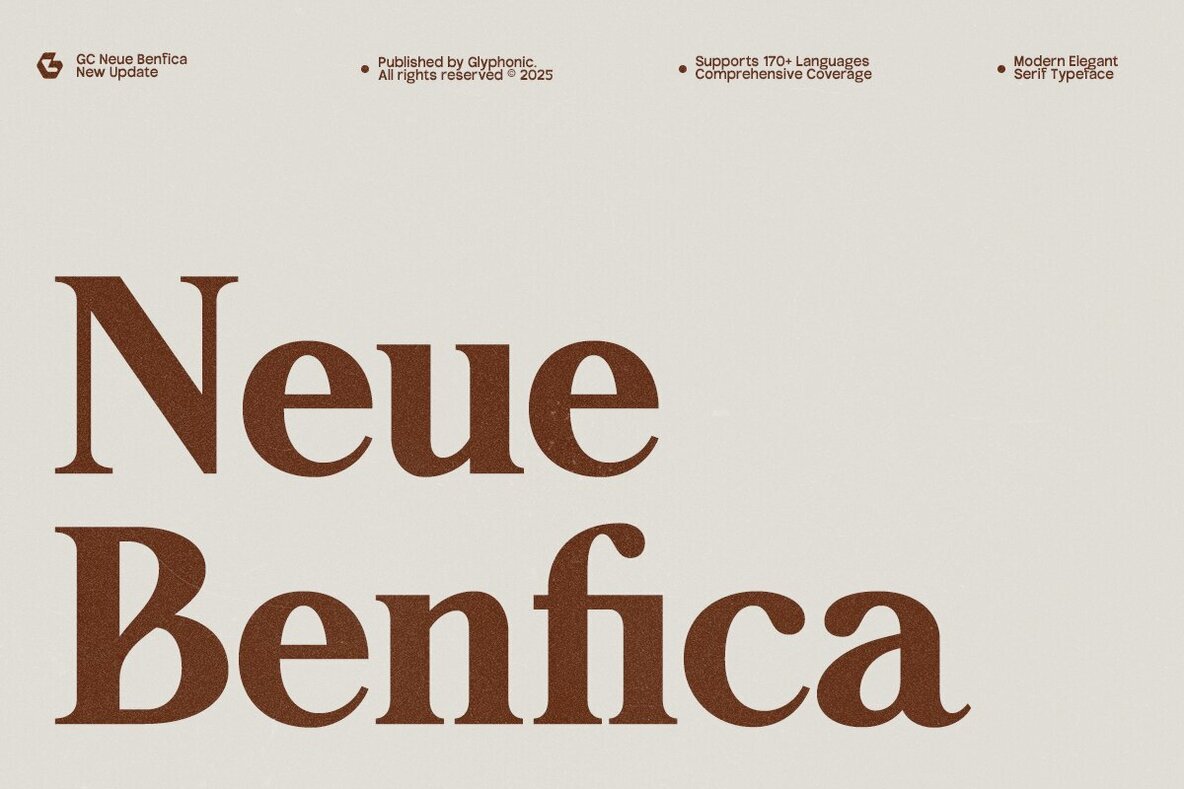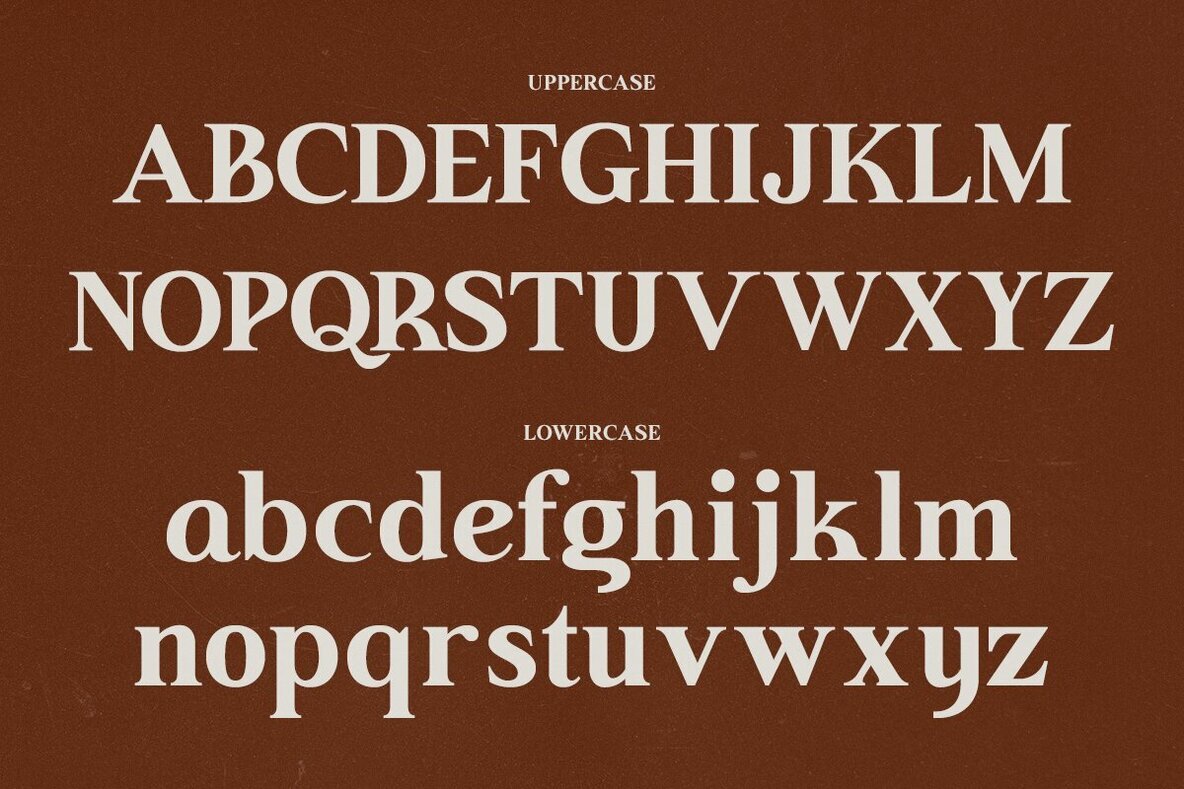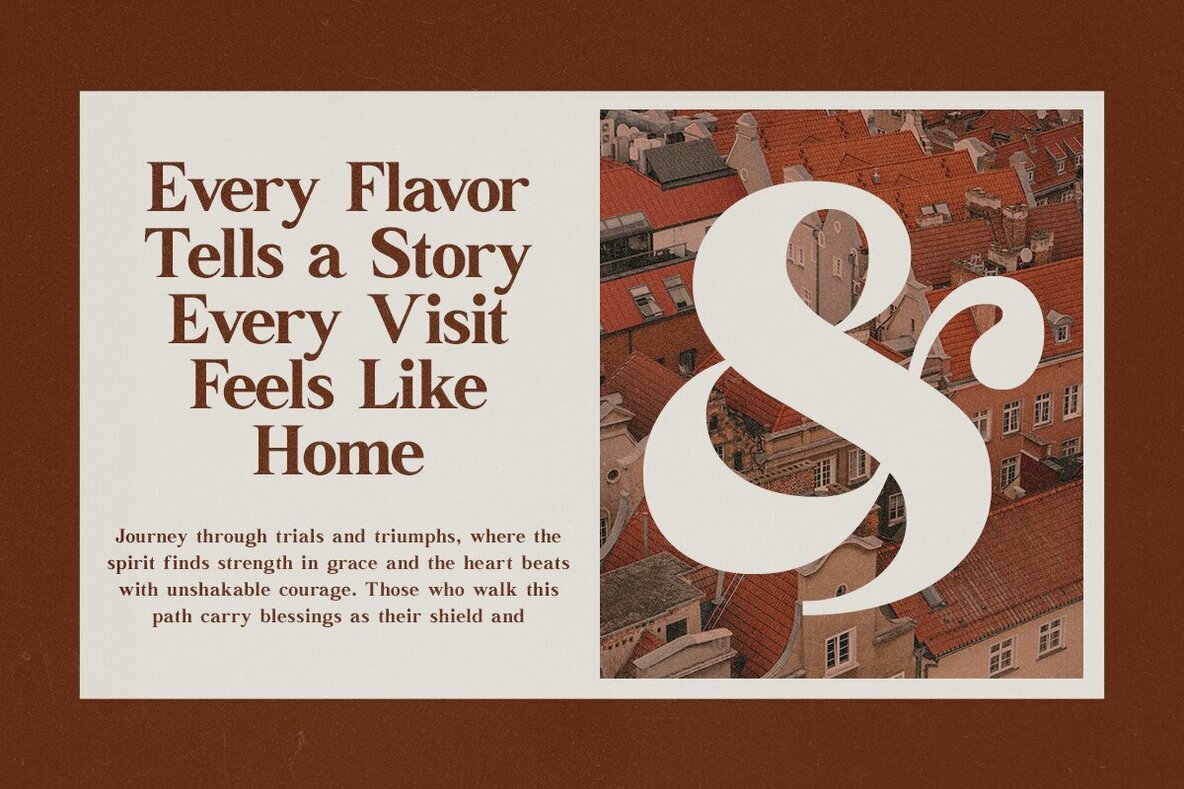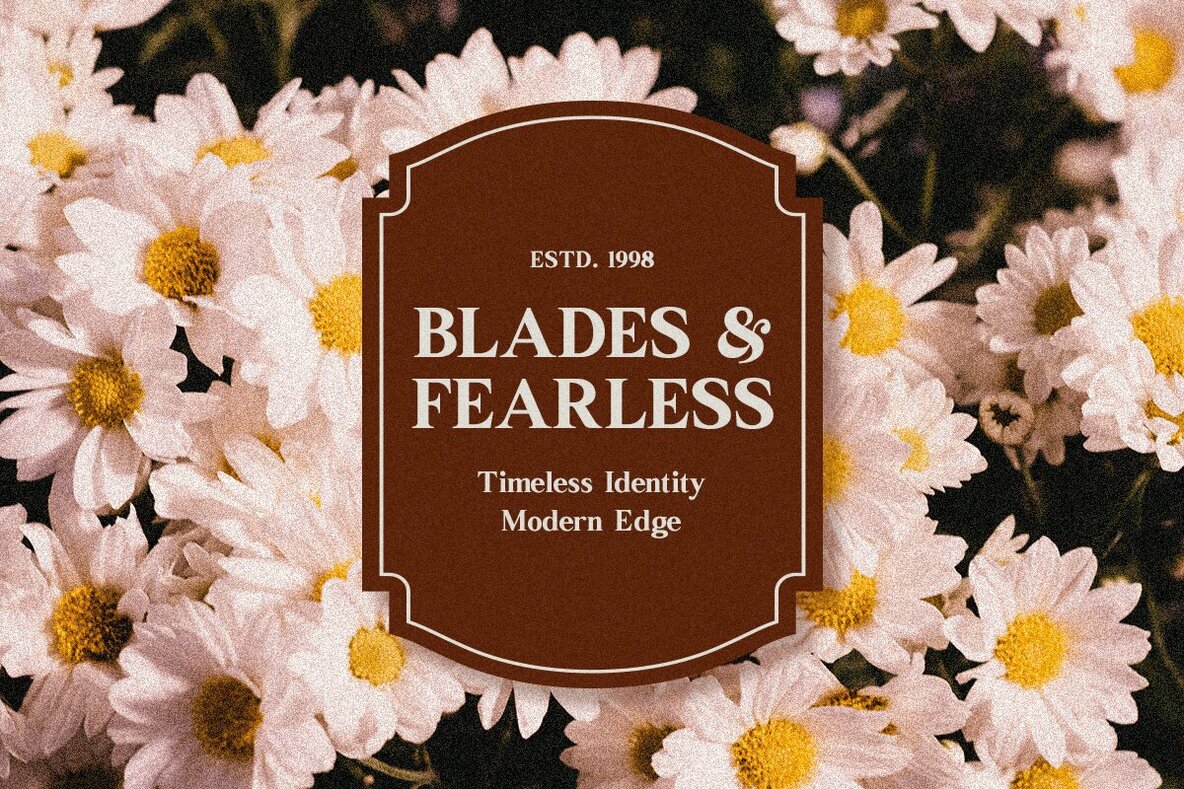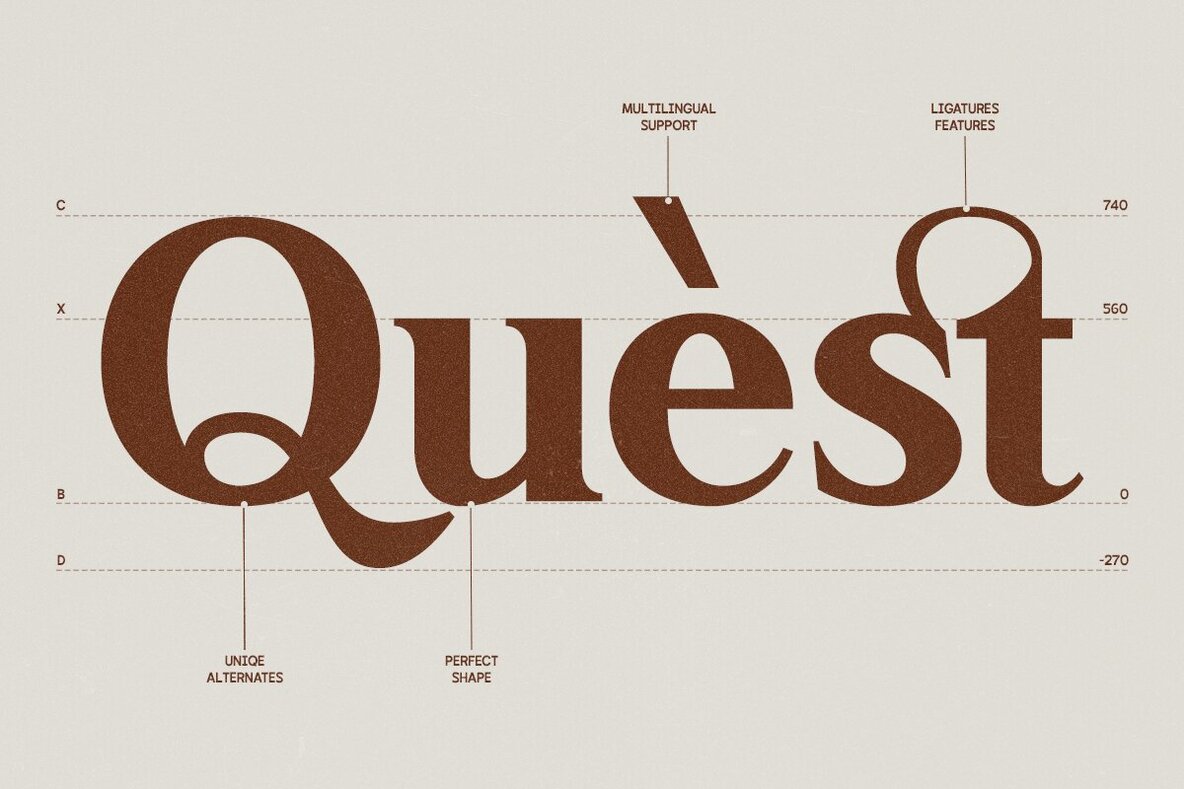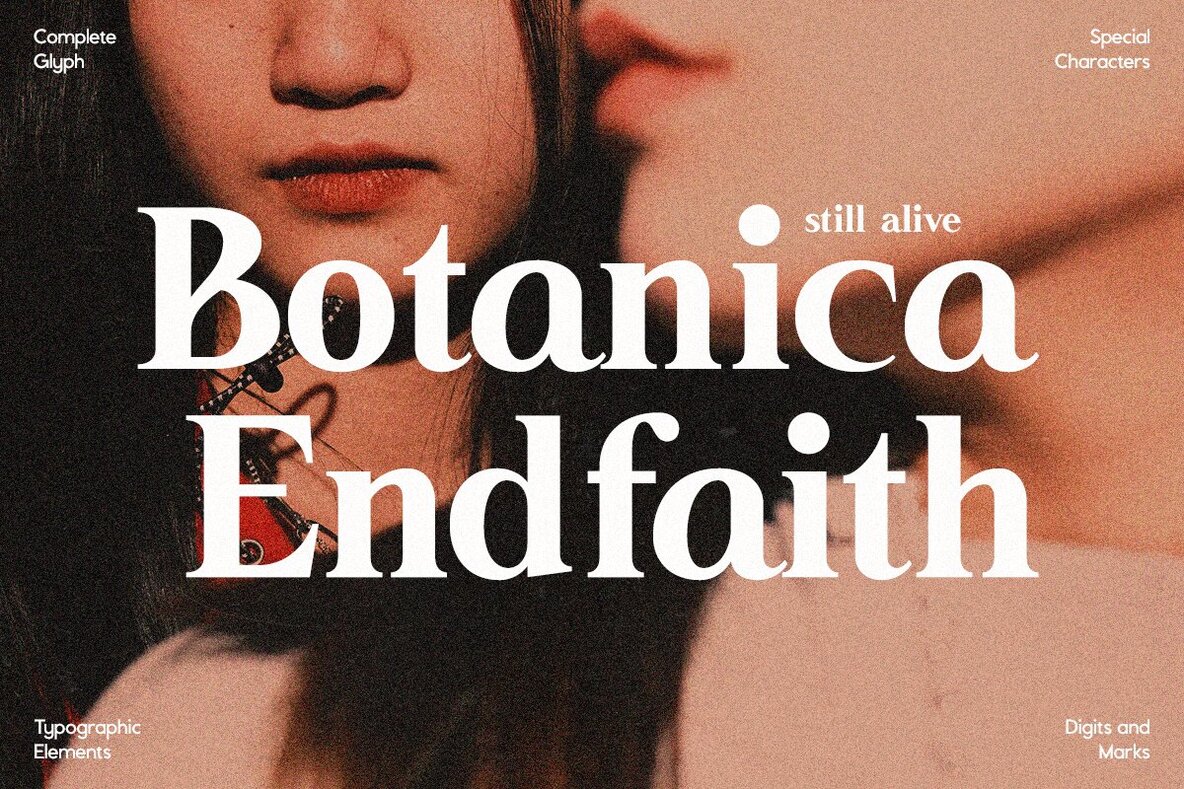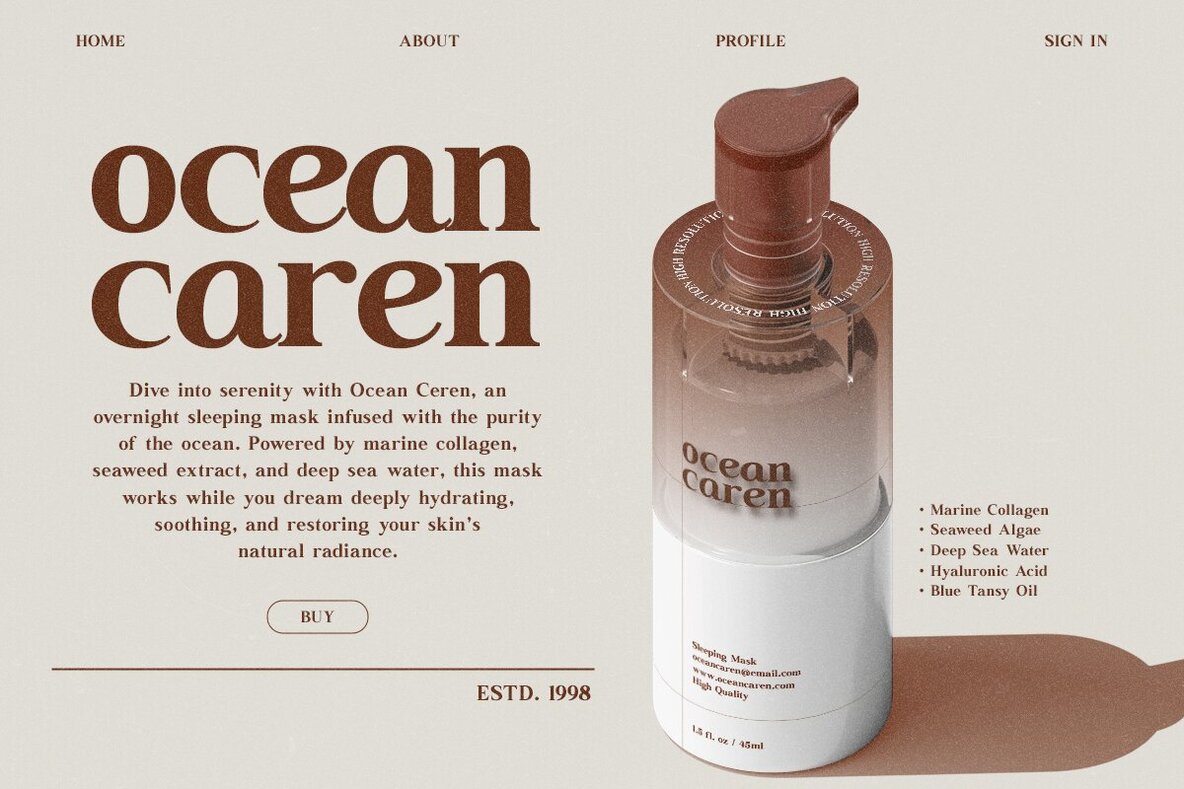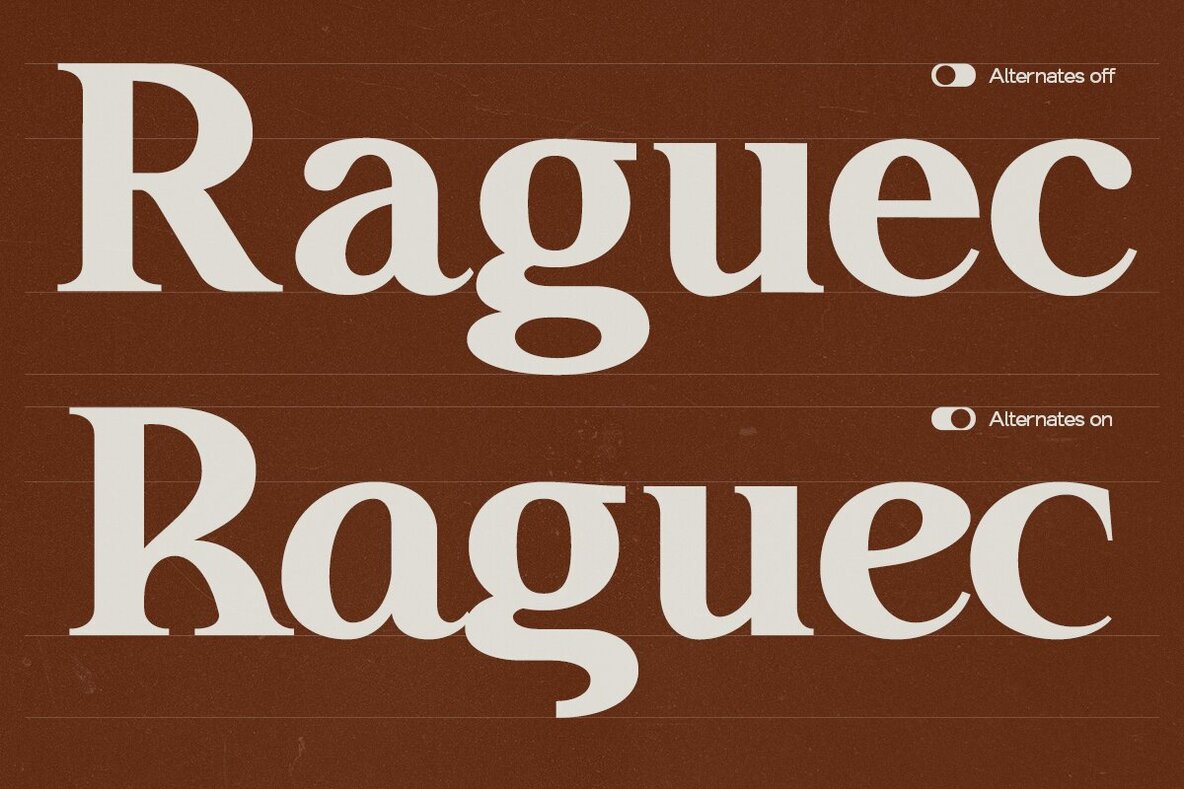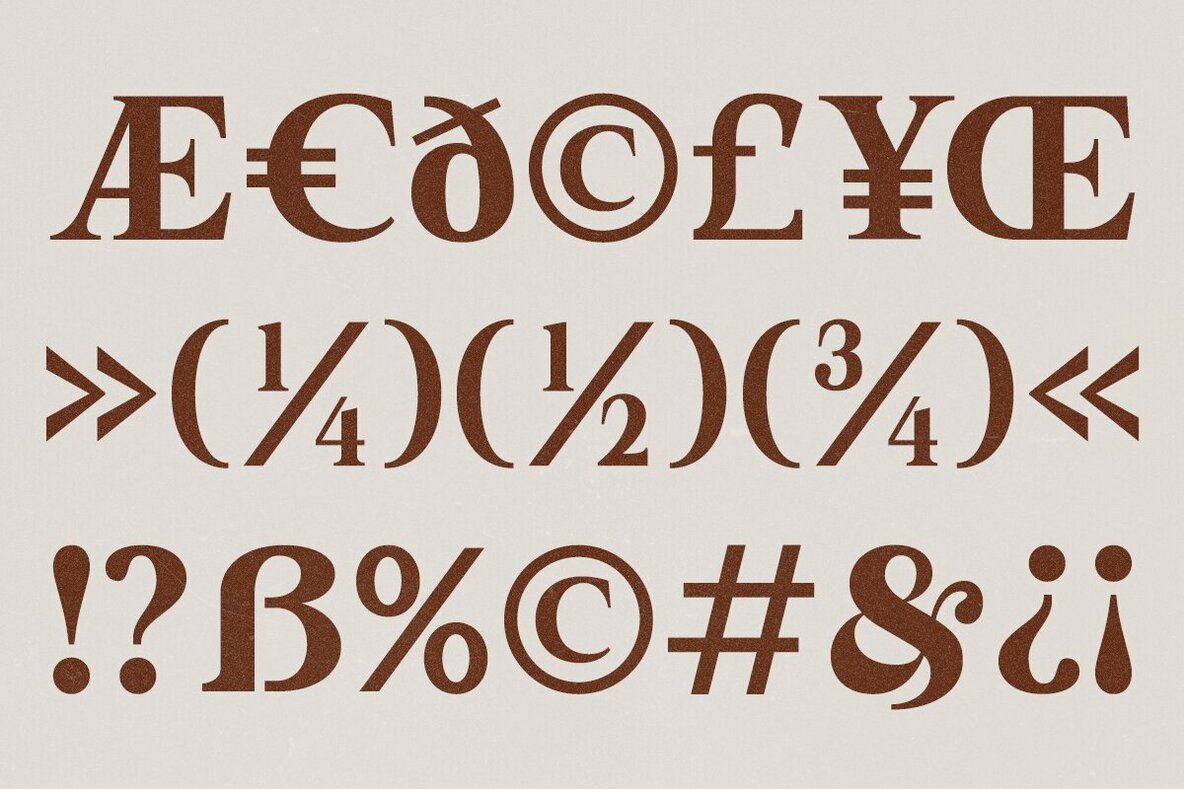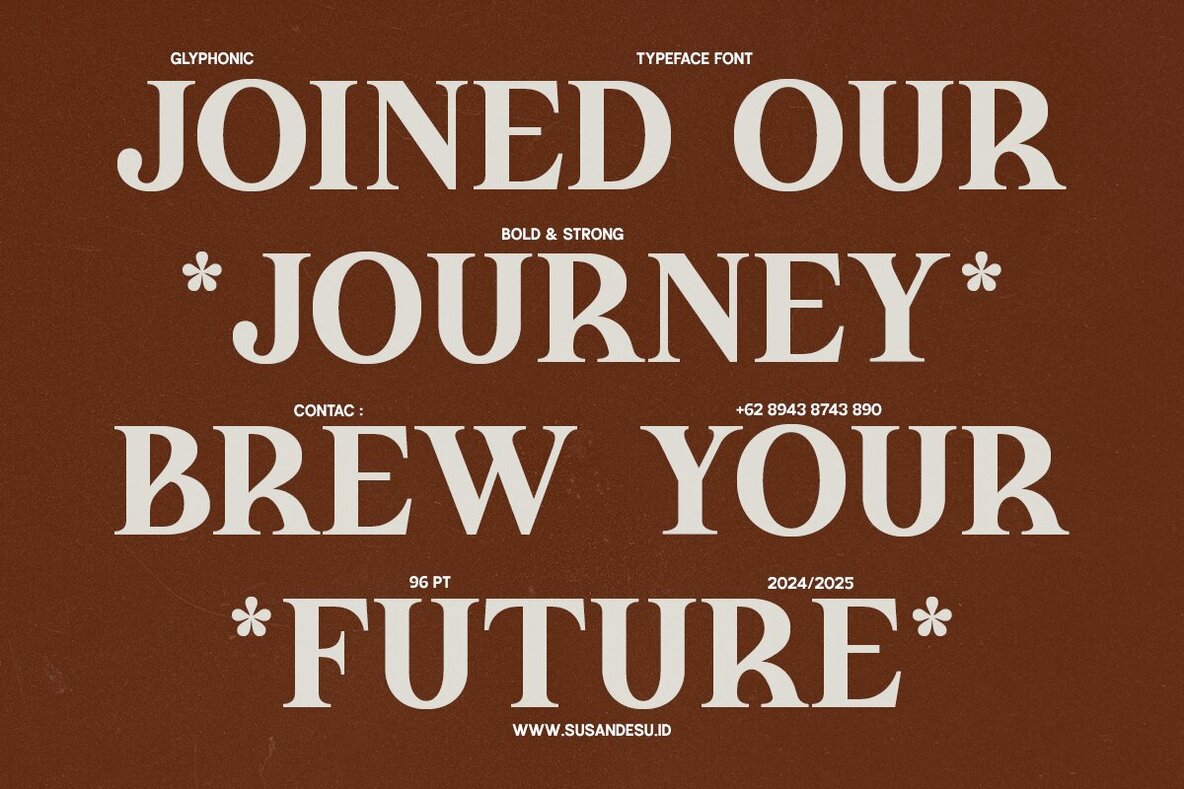
GC Neue Benfica Font
GC Neue Benfica Extra Bold
GC Neue Benfica is a modern classic serif typeface that artfully balances tradition with a contemporary touch. Its refined proportions, graceful curves, and balanced contrast provide a sophisticated voice suitable for both digital and print media. This font is ideal for branding, editorial layouts, luxury packaging, and creating striking visual identities. Each detail is thoughtfully crafted to merge authority and refinement, ensuring GC Neue Benfica remains both adaptable and distinctive. Whether designing bold headlines, polished editorials, or elegant posters, this typeface offers sophistication, clarity, and a modern elegance that elevates any typography project.GC Neue Benfica: Elegance and Versatility in Serif Typing